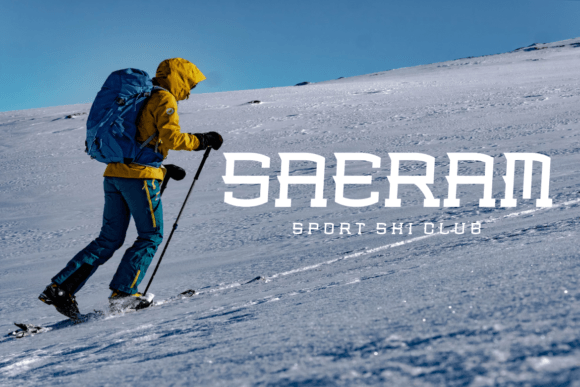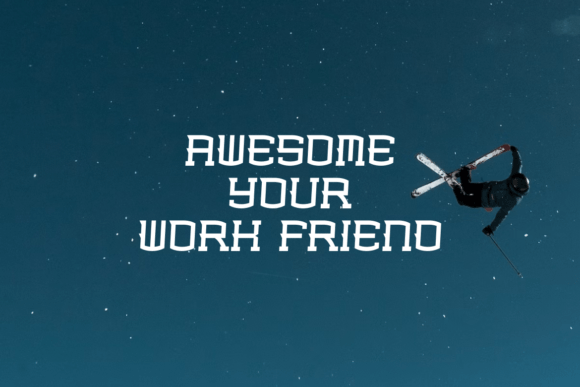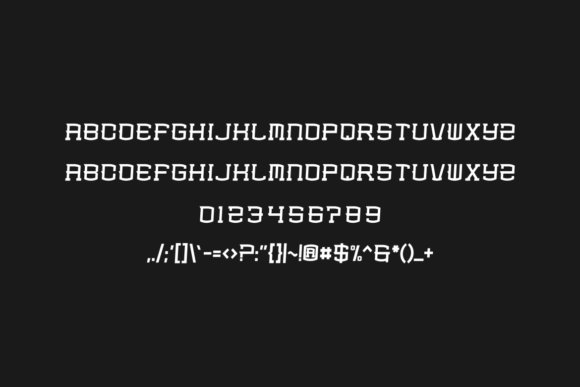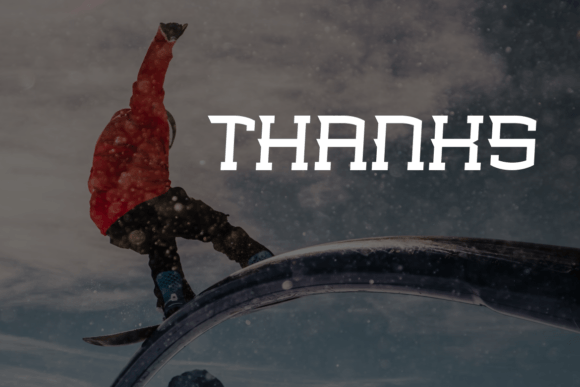
Introduction to Praesgo Font
Imagine you’re brainstorming ideas for a new sports branding campaign, and you stumble upon the perfect font – one that exudes energy, elegance, and a hint of classic charm. That’s exactly what you’ll find in the Praesgo Font, a serif font that’s as versatile as it is captivating.
As a designer, you know the value of having the right design resource at your fingertips. Praesgo Font is that game-changing asset that can elevate your creative project from ordinary to extraordinary. With its sharp, elegant letters, this font combines the sophistication of a classic serif with the modern, energetic feel of a cutting-edge design.
Key Features of Praesgo Font
- High-quality, professional design ideal for creative projects and presentations
- Transparent background option for seamless integration with various design elements
- Includes a range of glyphs and characters for versatile use in various design contexts
- Designed at a high resolution (300 DPI) for crisp and clear display
- Perfect design resource for graphic designers, artists, and creatives seeking a unique and stylish font
Honest Review: Praesgo Font
I recently had the chance to work with the Praesgo Font for a creative project and I must say, it’s a great addition to any designer’s toolkit. The font offers a high quality, modern aesthetic that’s perfect for any design resource.
- ✨ High quality and crisp rendering on various devices and screen sizes.
- ✨ Versatile and adaptable for a wide range of creative projects.
One of the standout features of the Praesgo Font is its ability to be used with a transparent background, which gives designers more flexibility when working on their projects.
- Limitations:
- ⚠️ Limited character set, which may not be suitable for projects that require a wide range of characters.
- ⚠️ Not ideal for body text, as it may be difficult to read in smaller font sizes.
Overall, I’m impressed with the Praesgo Font and would recommend it for designers looking for a high-quality, modern font to add to their design resource library. It’s a great free download that’s perfect for creative projects.
Praesgo Font
The Praesgo Font is a versatile and high-quality design resource ideal for creative projects. With a transparent background, it offers endless possibilities for customization.
Tips for Getting the Most Out of Praesgo Font
Here are some tips for getting the most out of Praesgo Font:
- Use the transparent background feature to create visually appealing text overlays.
- Combine Praesgo Font with other design elements to create unique and creative projects.
Common Use Cases for Praesgo Font
Praesgo Font is ideal for a variety of creative projects, including:
Comparison to Praesgo Font: Lato is more rounded and less angular than Praesgo Font, making it a great choice for projects that require a softer and more approachable design.
Q: Does Praesgo Font support a transparent background?
Yes, Praesgo Font has a transparent background, making it an excellent choice for designers working on creative projects that require a high level of customization and flexibility.